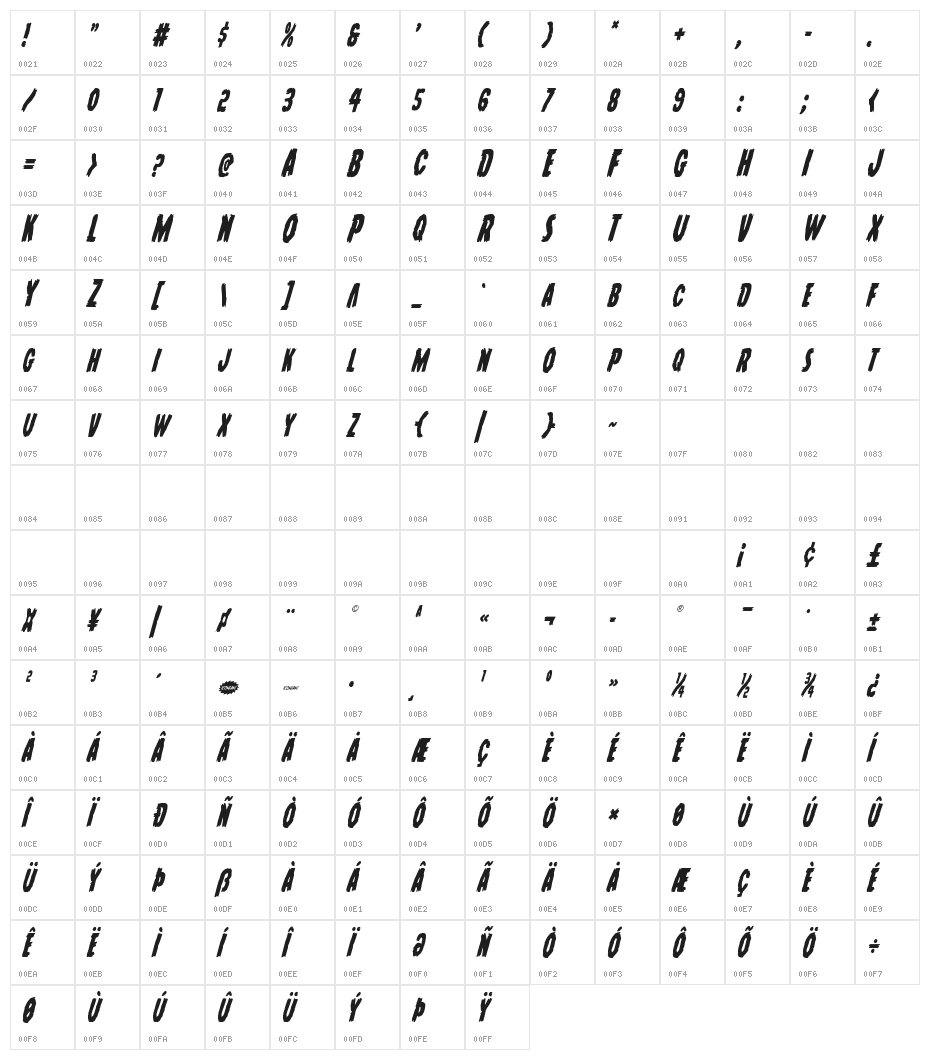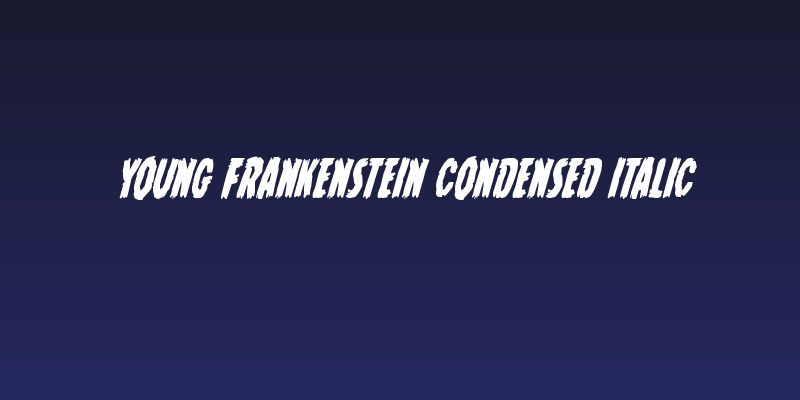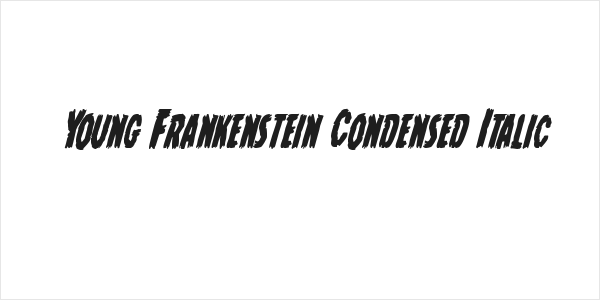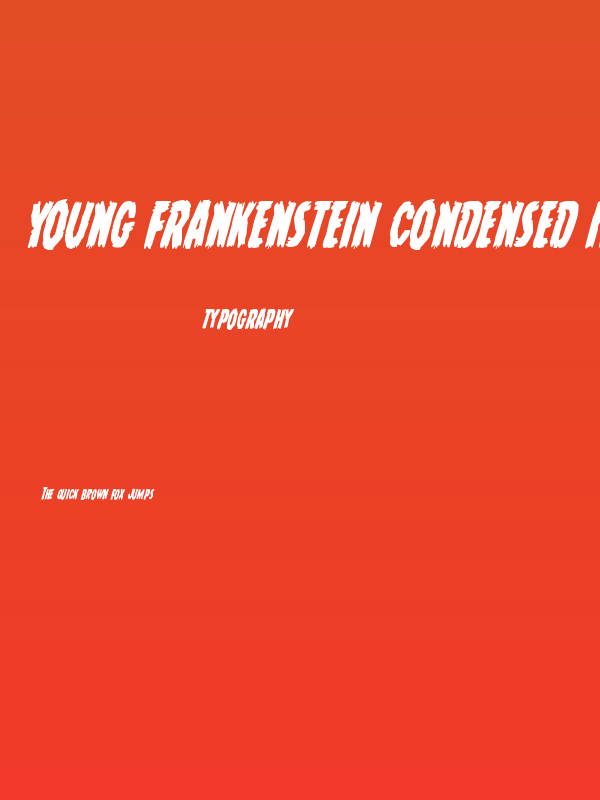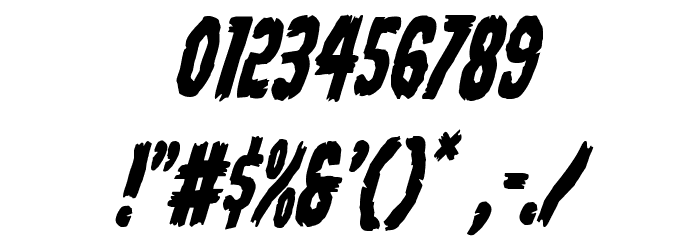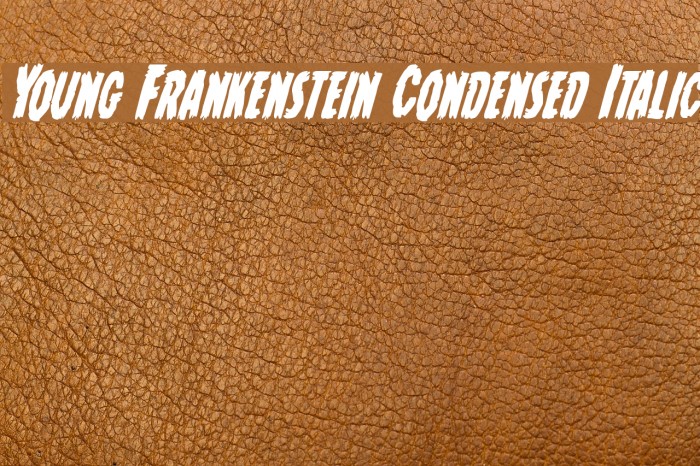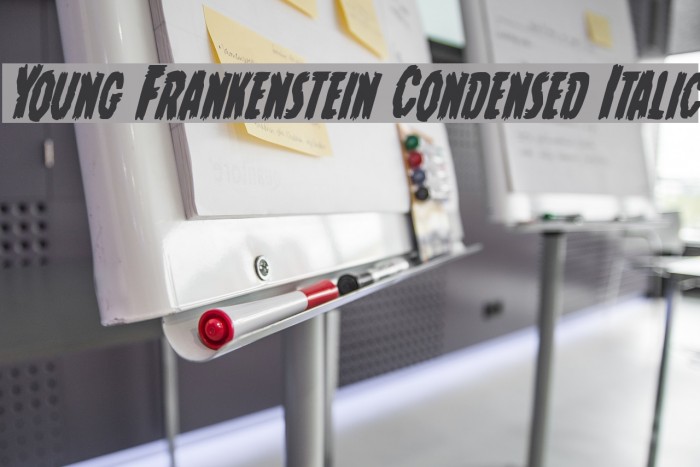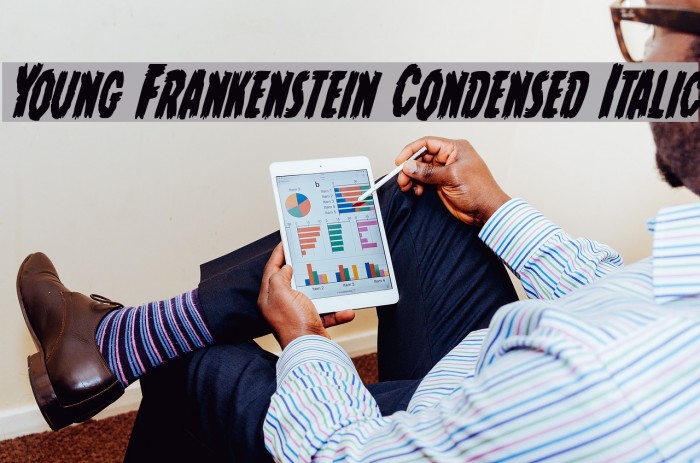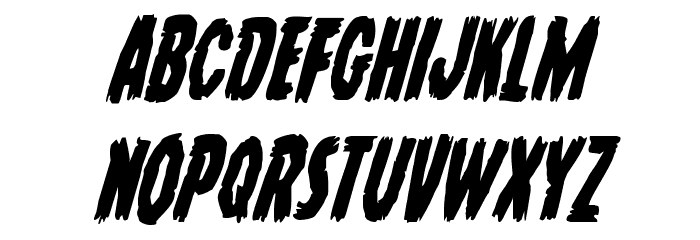
Young Frankenstein Condensed Italic Font
| Projets proposés | Ideal for horror-themed posters, movie titles, Halloween event flyers, and edgy branding projects. |